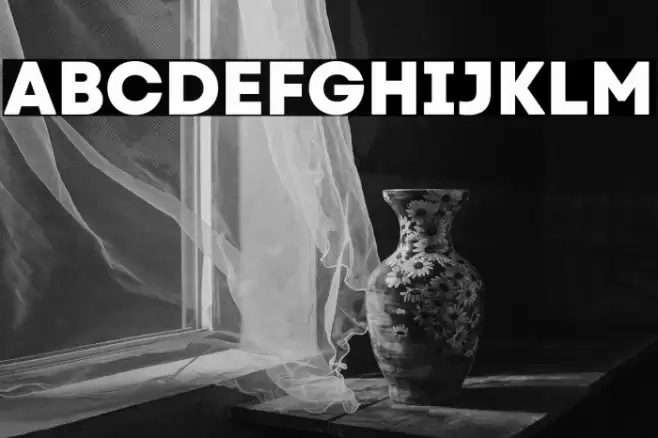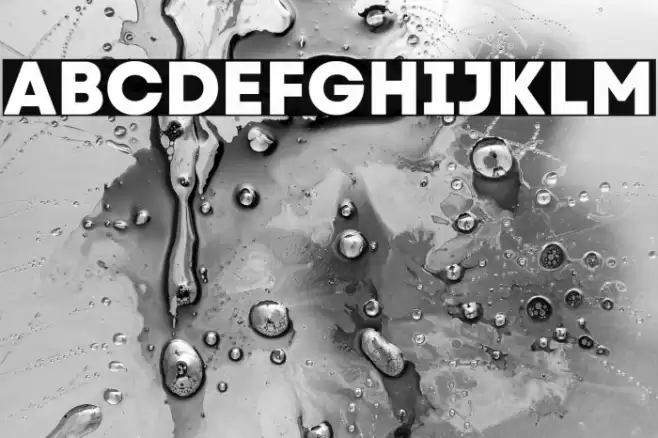
Code Next ExtraBold Font
Code Next ExtraBold Description
This font is a bold, modern sans-serif typeface characterized by its strong, geometric shapes and clean lines. The uppercase letters are uniform in height, creating a cohesive and balanced appearance. The lowercase letters maintain a similar width, contributing to a harmonious look. The numerals are bold and easily legible, making them suitable for various applications. Special characters are designed with the same boldness, ensuring consistency across all symbols. This typeface is ideal for making a strong visual impact, with its high contrast and clear readability.
A bold, modern sans-serif font with strong geometric shapes and clean lines from Uncategorized fonts.
- Font: Code Next ExtraBold
- Proposed Projects: Ideal for branding, advertising, headlines, and digital media where a strong visual impact is needed.
- Use Case: Headlines, Logos, Advertising